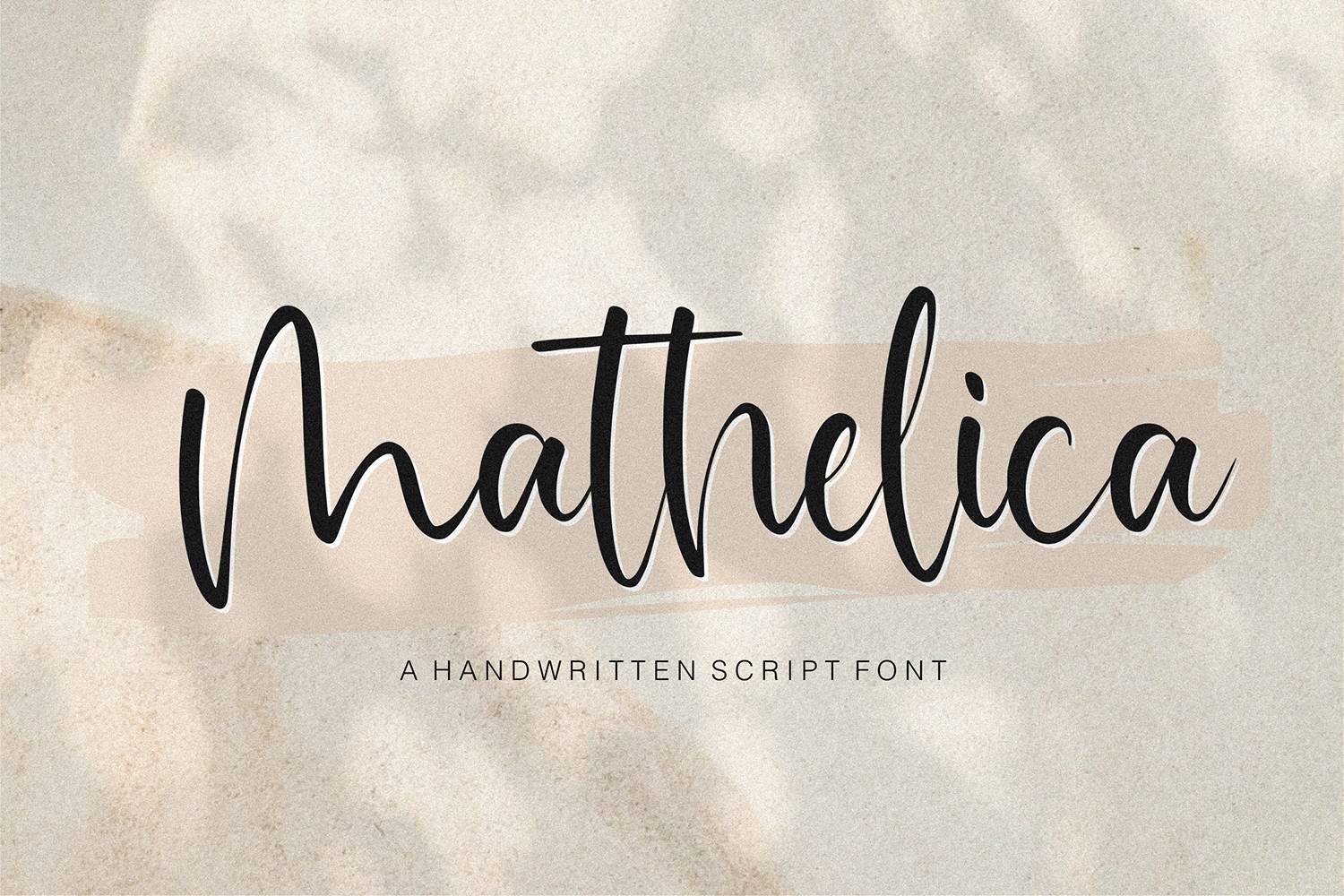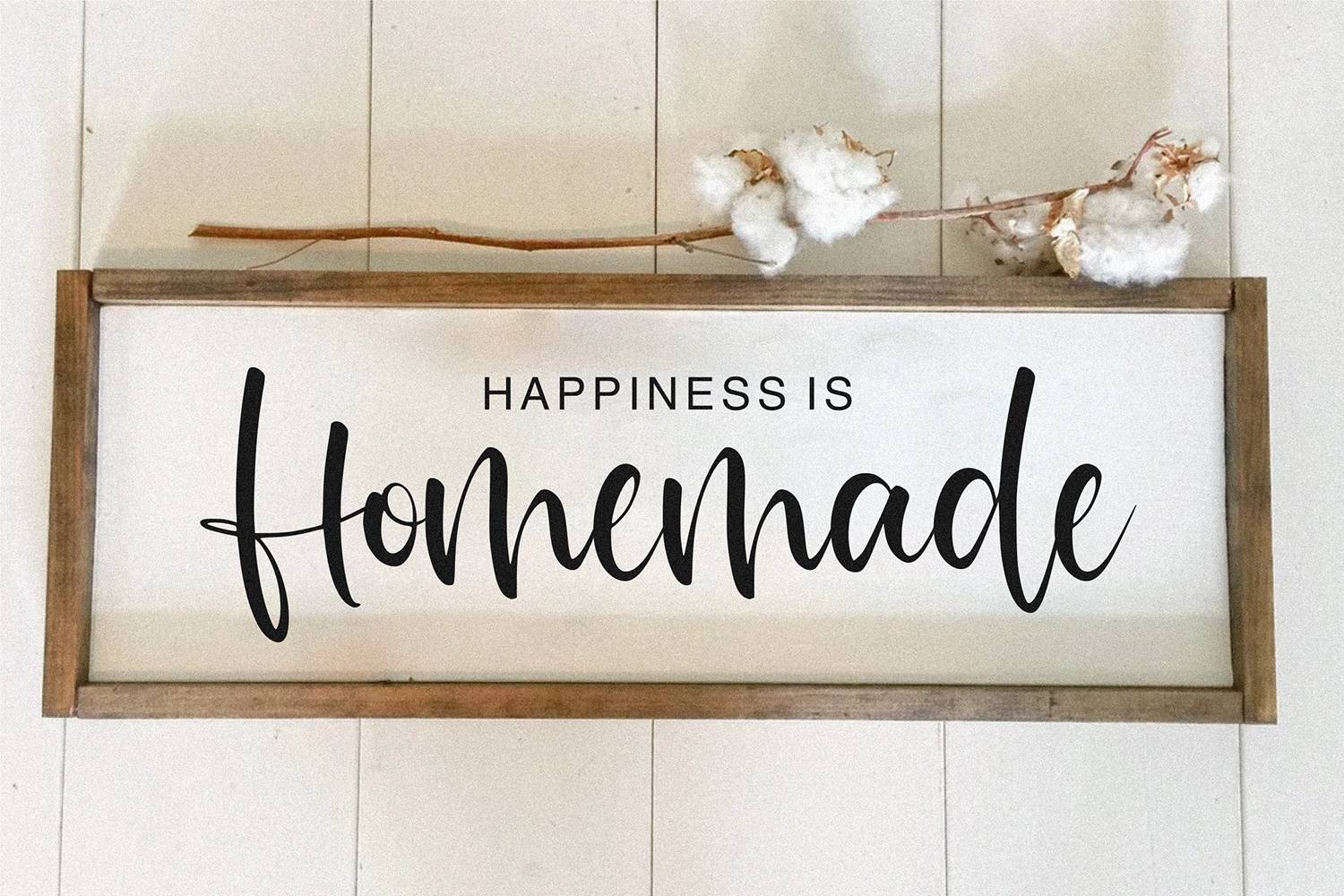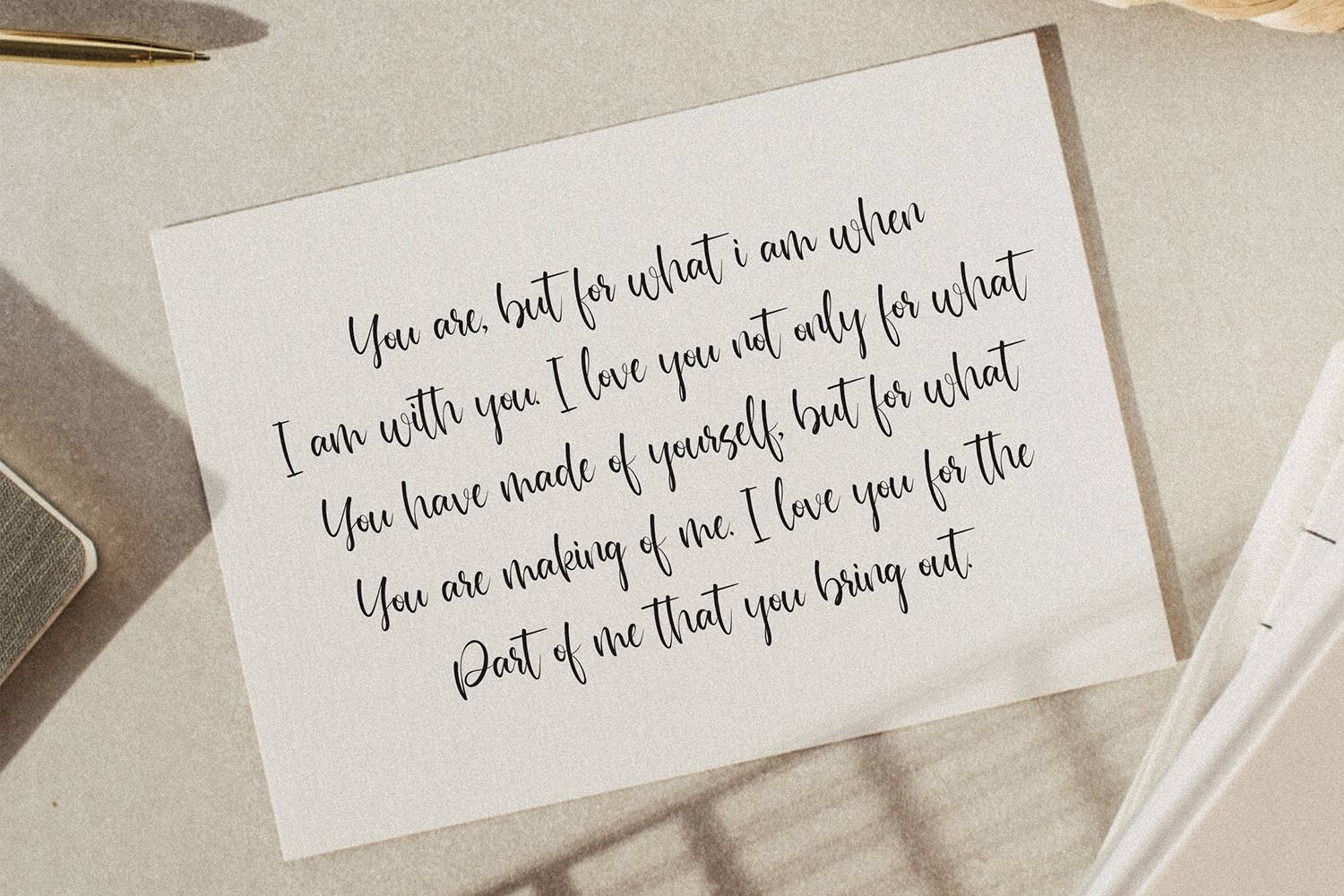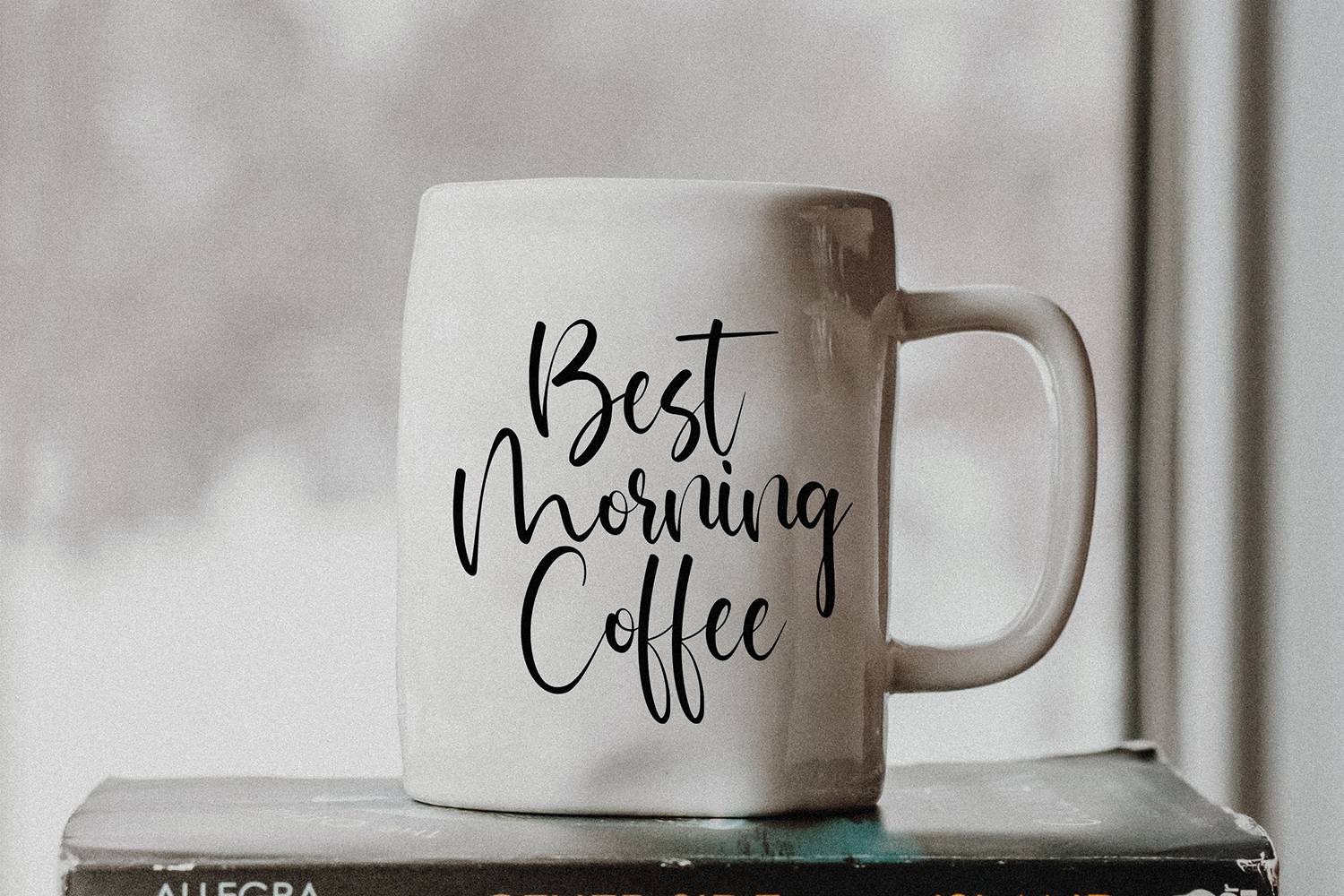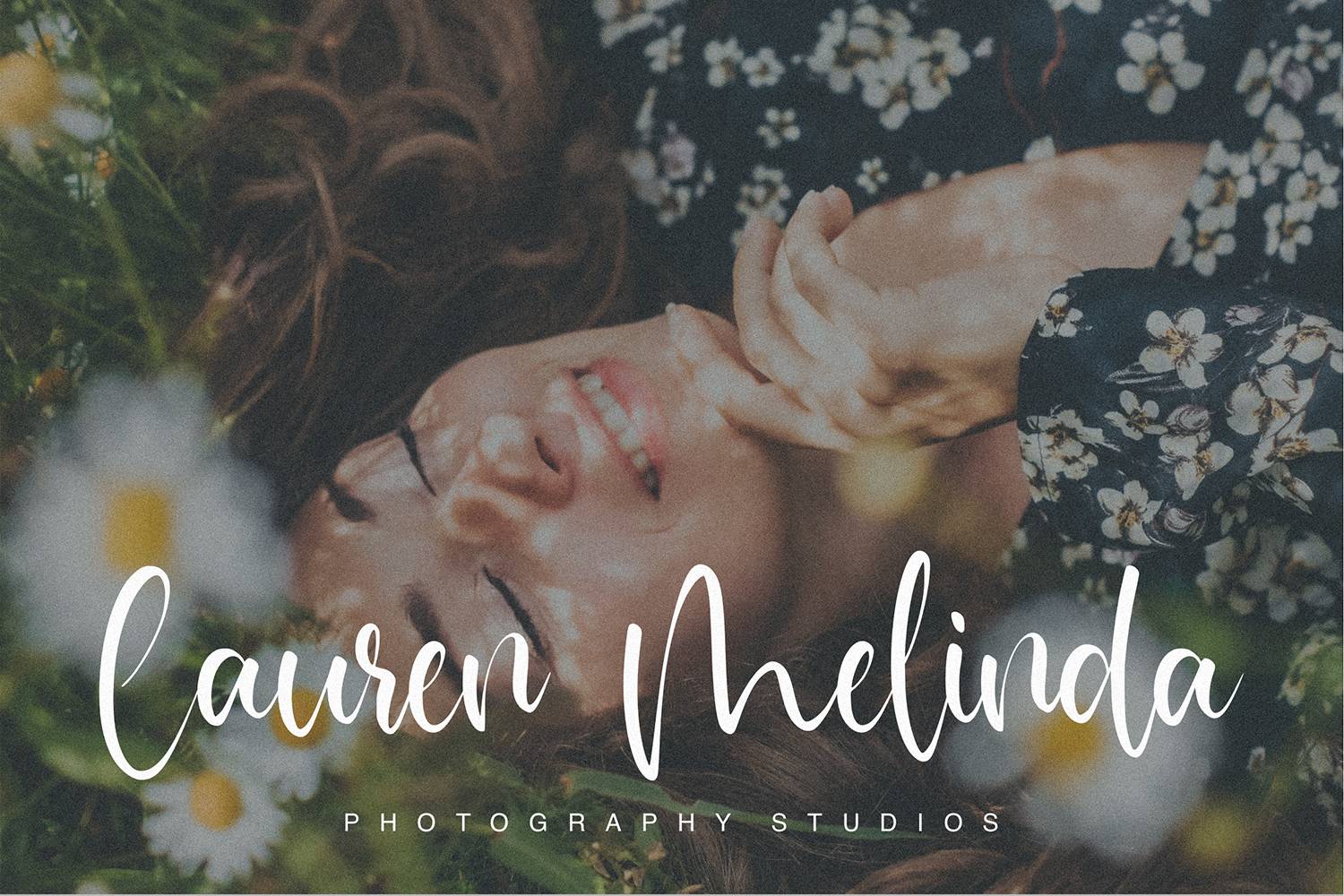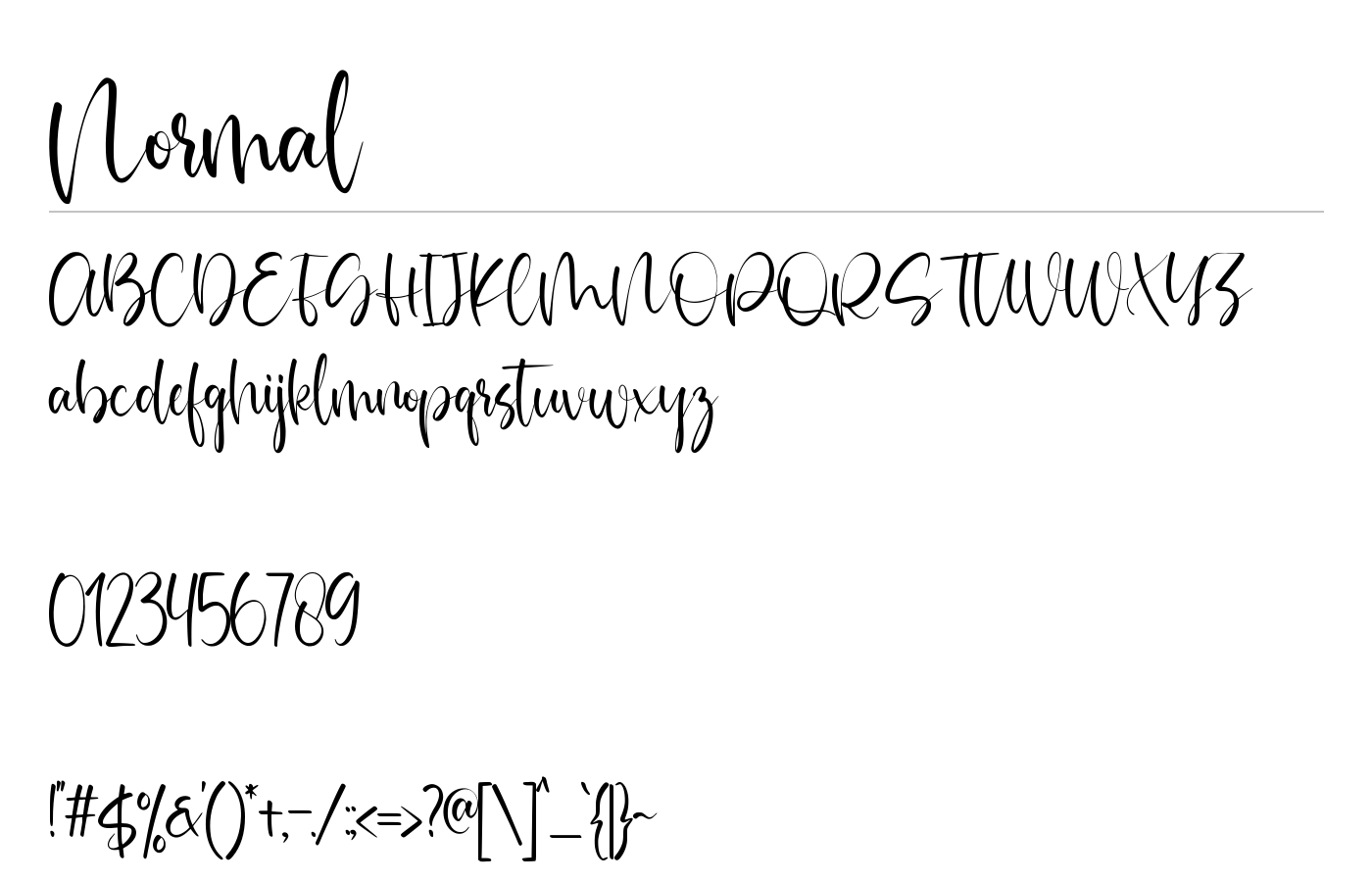
Mathelica is a playful, handwritten script font with a tall, narrow structure and smooth, flowing strokes. Its thin, casual letterforms and quirky character shapes give it a charming, friendly feel perfect for invitations, greeting cards, and creative branding that seeks a personal touch. This font works well for designs that want to combine elegance with an informal, approachable style.
Mathelica Font
About Mathelica Font
| Font family | Mathelica Font |